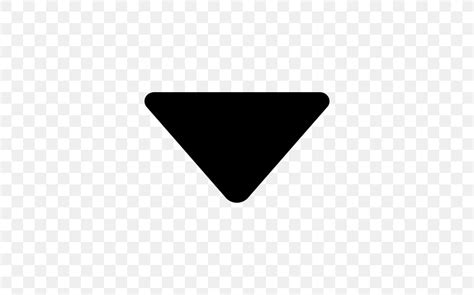
Font Awesome Down Arrow
Font Awesome Down Arrow - 111 rows fontawesome.cc offers a quick searchable reference (lookup) table of font awesome icons. W3schools offers free online tutorials, references and exercises in all the major languages of the web. Make a bold statement in small sizes. Covering popular subjects like html, css,. Arrow down icon in the solid style. Available now in font awesome 6.
Covering popular subjects like html, css,. W3schools offers free online tutorials, references and exercises in all the major languages of the web. Available now in font awesome 6. Make a bold statement in small sizes. 111 rows fontawesome.cc offers a quick searchable reference (lookup) table of font awesome icons. Arrow down icon in the solid style.
111 rows fontawesome.cc offers a quick searchable reference (lookup) table of font awesome icons. W3schools offers free online tutorials, references and exercises in all the major languages of the web. Covering popular subjects like html, css,. Make a bold statement in small sizes. Arrow down icon in the solid style. Available now in font awesome 6.
Font Awesome Arrow Down Icon
W3schools offers free online tutorials, references and exercises in all the major languages of the web. 111 rows fontawesome.cc offers a quick searchable reference (lookup) table of font awesome icons. Available now in font awesome 6. Make a bold statement in small sizes. Covering popular subjects like html, css,.
Arrow Down Arrow Up Classic Solid Icon Font Awesome
Covering popular subjects like html, css,. 111 rows fontawesome.cc offers a quick searchable reference (lookup) table of font awesome icons. Arrow down icon in the solid style. W3schools offers free online tutorials, references and exercises in all the major languages of the web. Make a bold statement in small sizes.
Arrow down icon in the solid style. 111 rows fontawesome.cc offers a quick searchable reference (lookup) table of font awesome icons. W3schools offers free online tutorials, references and exercises in all the major languages of the web. Available now in font awesome 6. Make a bold statement in small sizes.
111 rows fontawesome.cc offers a quick searchable reference (lookup) table of font awesome icons. Make a bold statement in small sizes. W3schools offers free online tutorials, references and exercises in all the major languages of the web. Arrow down icon in the solid style. Available now in font awesome 6.
Arrows Icons Font Awesome
Arrow down icon in the solid style. Covering popular subjects like html, css,. W3schools offers free online tutorials, references and exercises in all the major languages of the web. 111 rows fontawesome.cc offers a quick searchable reference (lookup) table of font awesome icons. Make a bold statement in small sizes.
Make a bold statement in small sizes. Available now in font awesome 6. 111 rows fontawesome.cc offers a quick searchable reference (lookup) table of font awesome icons. Covering popular subjects like html, css,. Arrow down icon in the solid style.
111 rows fontawesome.cc offers a quick searchable reference (lookup) table of font awesome icons. Available now in font awesome 6. Covering popular subjects like html, css,. W3schools offers free online tutorials, references and exercises in all the major languages of the web. Arrow down icon in the solid style.
Font Awesome Down Arrow Drop Down List Arrow Clipart Large Size Png
W3schools offers free online tutorials, references and exercises in all the major languages of the web. Arrow down icon in the solid style. Available now in font awesome 6. 111 rows fontawesome.cc offers a quick searchable reference (lookup) table of font awesome icons. Make a bold statement in small sizes.
Arrow Down Icon Font Awesome
W3schools offers free online tutorials, references and exercises in all the major languages of the web. Make a bold statement in small sizes. 111 rows fontawesome.cc offers a quick searchable reference (lookup) table of font awesome icons. Available now in font awesome 6. Arrow down icon in the solid style.
FileCircle Arrow Down Font Awesome.svg Wikimedia Commons Cliparts.co
Available now in font awesome 6. W3schools offers free online tutorials, references and exercises in all the major languages of the web. 111 rows fontawesome.cc offers a quick searchable reference (lookup) table of font awesome icons. Arrow down icon in the solid style. Make a bold statement in small sizes.
Make a bold statement in small sizes. Arrow down icon in the solid style. Available now in font awesome 6. 111 rows fontawesome.cc offers a quick searchable reference (lookup) table of font awesome icons.